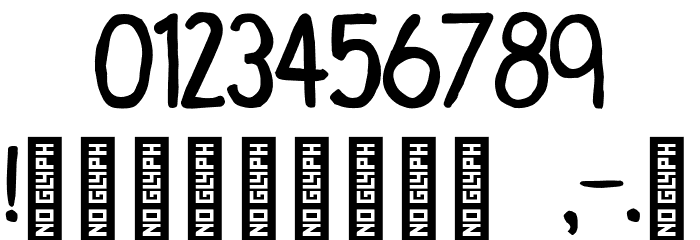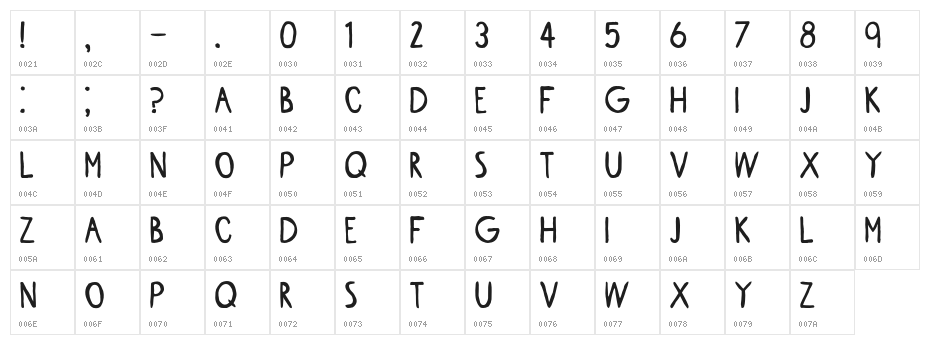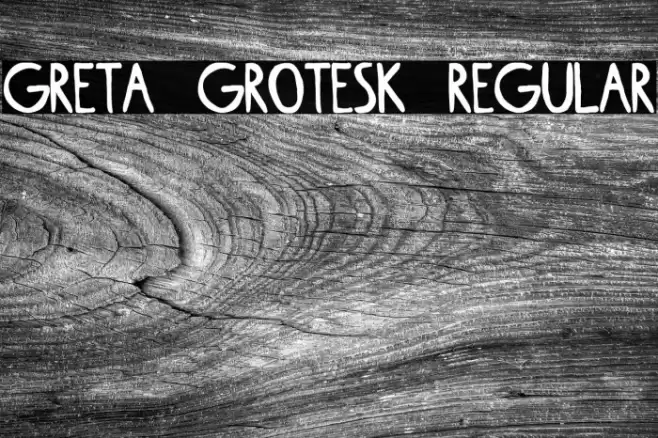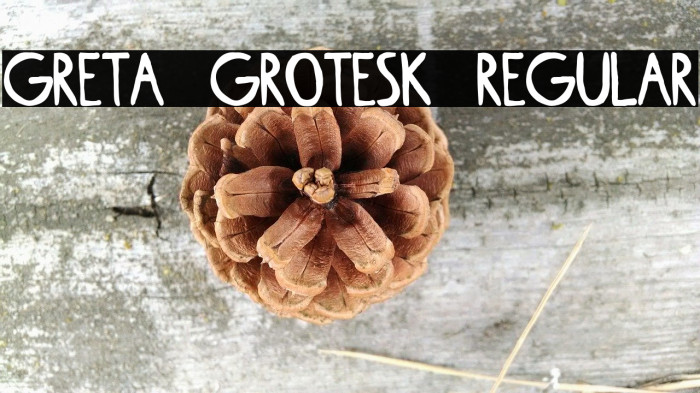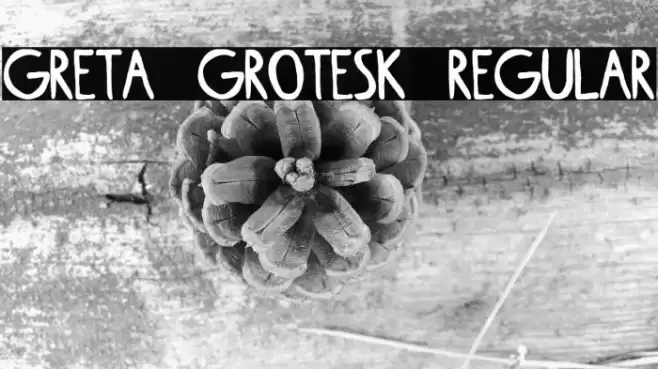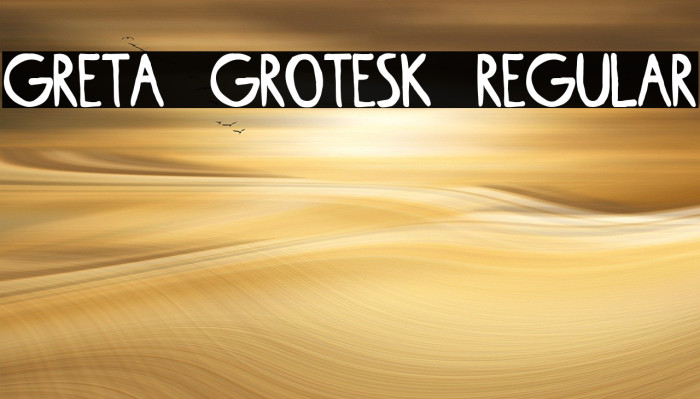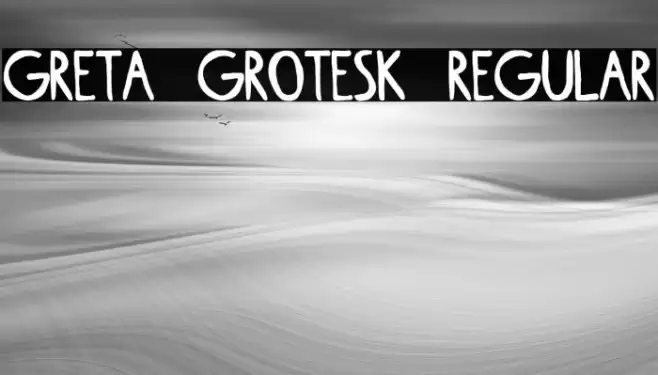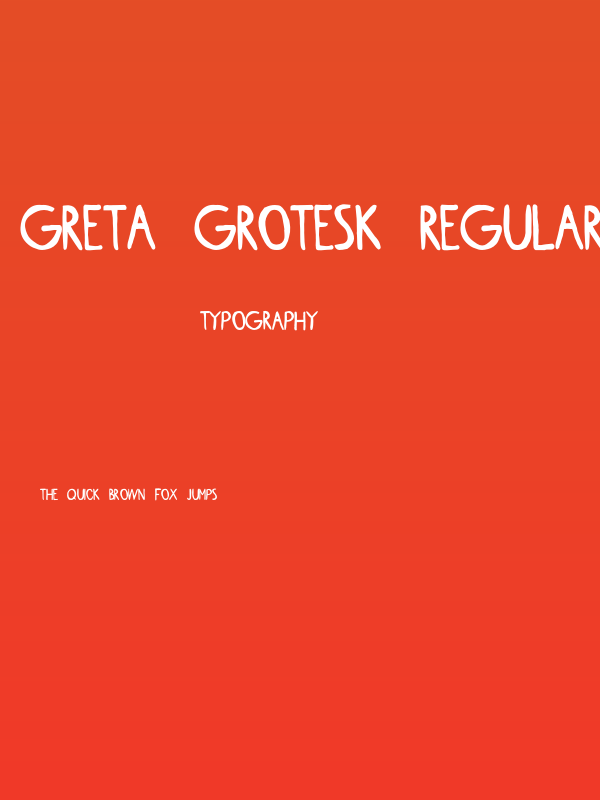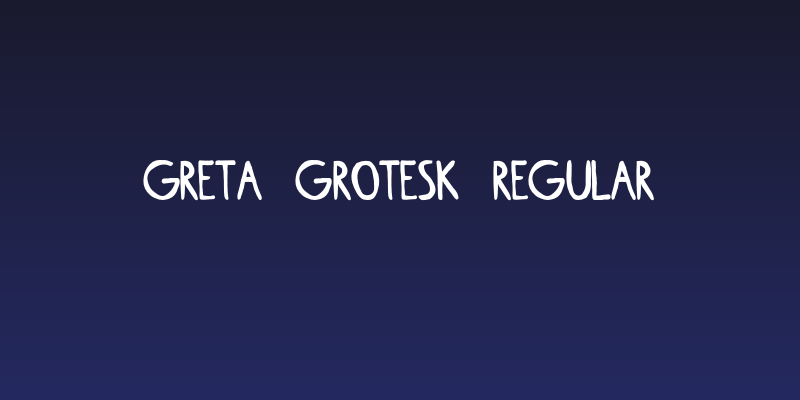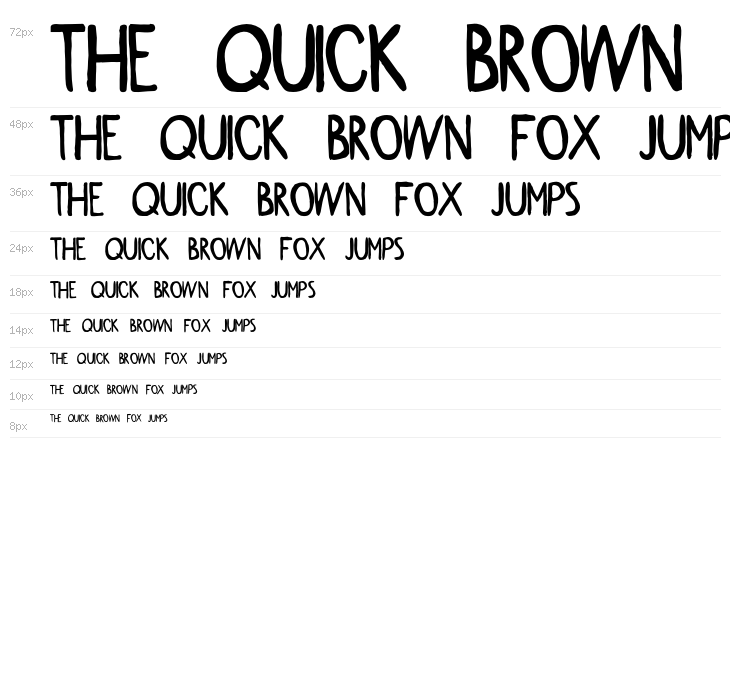
Greta Grotesk Regular Font
Greta Grotesk Regular Description
This font features a bold, hand-drawn style with a playful and informal appearance. The characters are slightly irregular, adding a unique and organic feel. The uppercase letters are prominent and well-defined, while the lowercase letters maintain a consistent style. The numbers are clear and easy to read, matching the overall aesthetic. The font lacks certain special characters, which may limit its use in some contexts. Its bold strokes and casual design make it suitable for projects that require a touch of creativity and informality.
| Proposed Projects | Ideal for children's books, creative posters, casual branding, and playful social media graphics. |